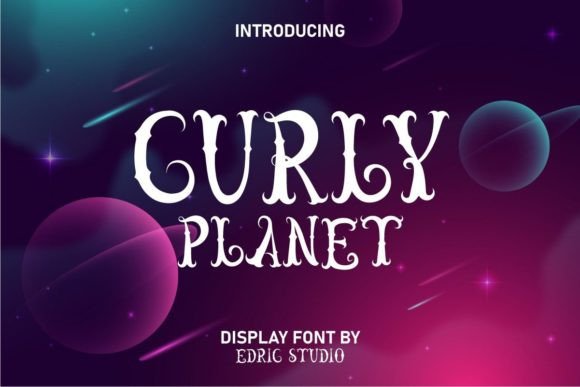
Introducing Curly Planet Font: The Ultimate Decorative Font for Vintage Themes
Are you a designer or crafter looking for a unique and eye-catching font to add a touch of vintage charm to your projects? Look no further than Curly Planet Font, a stunning display font that is sure to impress. With its curly style and bifurcated serif on the letterforms, this font is perfect for creating visually striking designs that evoke a sense of nostalgia and classic elegance.
What Makes Curly Planet Font So Special?
Curly Planet Font is a gorgeous display font that boasts a distinctive curly style, making it an ideal choice for vintage or old-school themes. The addition of bifurcated serif on the letterforms adds a level of sophistication and refinement, setting it apart from other fonts in its class. Whether you’re looking to create vintage logos, mugs, embroidery, prints, display text, packaging, cards, emblems, signage, or any other type of design, Curly Planet Font is the perfect choice.
One of the best things about Curly Planet Font is its versatility. This font can be used for a wide range of design projects, including:
- Vintage logos and branding
- Mugs and ceramics
- Embroidery and stitching
- Prints and posters
- Display text and headlines
- Packaging and labeling
- Cards and invitations
- Emblems and badges
- Signage and advertising
Whether you’re a professional designer or a crafty DIY enthusiast, Curly Planet Font is sure to inspire your creativity and help you create stunning designs that stand out from the crowd.
Why Choose Curly Planet Font?
So why choose Curly Planet Font over other fonts? Here are just a few reasons:
- Unique and eye-catching: Curly Planet Font is a one-of-a-kind font that is sure to grab attention and make your designs stand out.
- Vintage charm: This font has a classic, nostalgic feel that’s perfect for creating vintage-inspired designs.
- Highly versatile: Curly Planet Font can be used for a wide range of design projects, from logos and branding to packaging and signage.
Tips for Using Curly Planet Font
To get the most out of Curly Planet Font, here are a few tips to keep in mind:
- Use it sparingly: Because Curly Planet Font is so eye-catching, it’s best to use it sparingly to avoid overwhelming your design.
- Experiment with colors: Try pairing Curly Planet Font with different colors and textures to create a unique and visually striking design.
- Mix and match: Don’t be afraid to mix and match Curly Planet Font with other fonts and design elements to create a truly unique look.